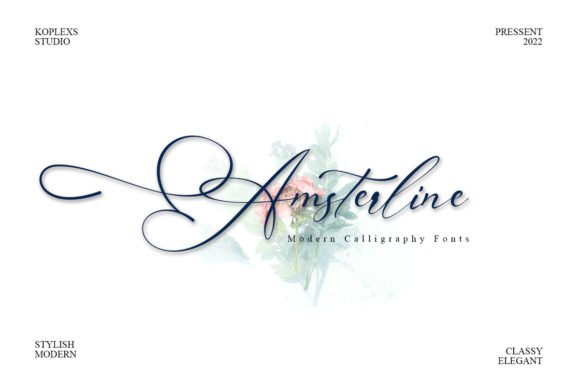
Discover the Delicate Charm of Amsterline Font
There’s nothing quite like the thrill of creating a design that comes together just right. The font, the colors, the layout – it all falls into place, and you know you’ve created something special. For designers, finding the perfect font can be the key to unlocking that magic. And that’s where Amsterline Font comes in – a slim and delicate script font that’s perfect for bringing a touch of elegance to your designs.
Amsterline Font is a versatile choice that’s suitable for a wide range of applications, from book texts and business reports to posters and advertisements. Its PUA encoding makes it easy to access all of the glyphs and swashes, giving you the flexibility to create unique and personalized designs. Whether you’re a seasoned pro or just starting out, Amsterline Font is a valuable addition to any designer’s toolkit.
- Unique Characteristics: This font features a distinctive, hand-drawn aesthetic with subtle flair and personality, making it an excellent choice for creative and design-oriented projects.
Amsterline Font Review
Overall, I think the Amsterline font has some great qualities that make it a solid choice for certain design projects. ✨ The font’s unique blend of modern and vintage elements gives it a distinctive look that’s sure to grab attention. I also appreciate the wide range of weights and styles available, which makes it easy to customize and adapt to different design needs.
Here are some of the things that I think work particularly well:
- ✨ Unique blend of modern and vintage elements
- ✨ Wide range of weights and styles available
- ✨ Excellent legibility, making it suitable for body text and headings
- ⚠️ The font may be too ornate for some design projects, making it difficult to read at smaller sizes
- ⚠️ Some of the styles may be a bit too dramatic, which could detract from the overall design
- ⚠️ Limited support for certain languages and character sets
Overall, I think the Amsterline font is a great choice for designers who want to add a touch of elegance and sophistication to their projects. With a little careful selection of weights and styles, it can be a real showstopper. Just be mindful of the potential limitations and use it thoughtfully.
Amsterline Font Practical Application Guide
Tips for Getting the Most Out of Amsterline Font
1. Use Amsterline font for titles, headings, and other emphasis text.
2. Pair Amsterline font with a clean sans-serif font for body text.
3. Experiment with different font sizes and colors to create a visually appealing design.
Amsterline font is ideal for:
– Social media graphics and advertising
– Editorial and publishing design
Alternatives to Amsterline Font
Great Vibes is a beautiful, modern script font that is perfect for adding a touch of elegance to your designs. It is ideal for use in headings, titles, and other areas where you want to create a sense of sophistication.
Compared to Amsterline Font, Great Vibes has a more refined and polished look, making it suitable for high-end branding and design projects. While Amsterline Font has a more casual, handwritten feel, Great Vibes is more formal and structured.
Carolyna Pro is a elegant, modern script font that is perfect for use in branding, packaging, and other design projects where you want to create a sense of luxury and sophistication.